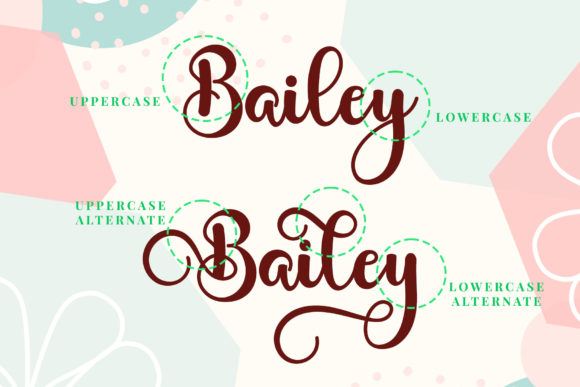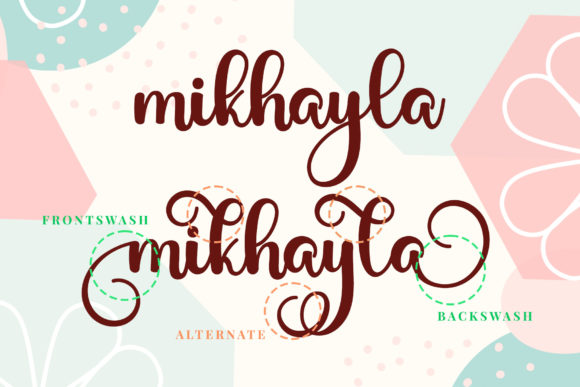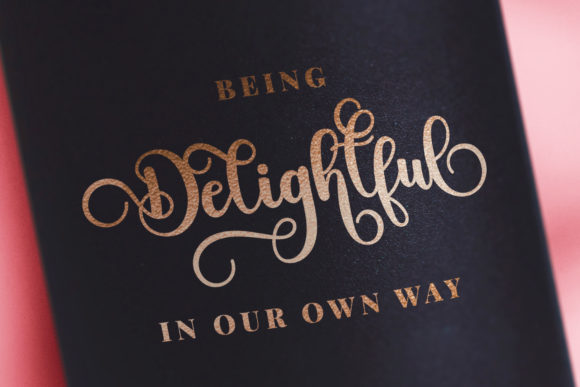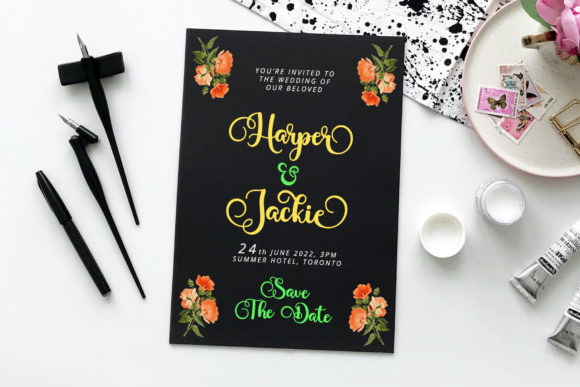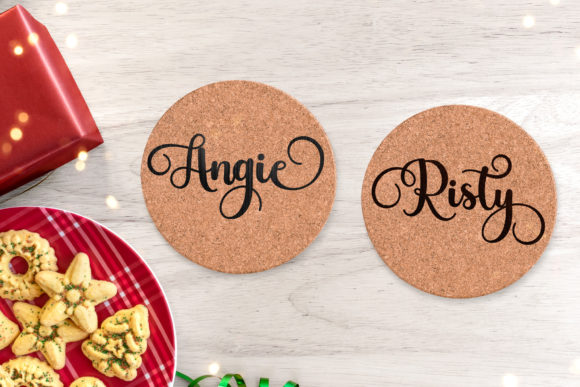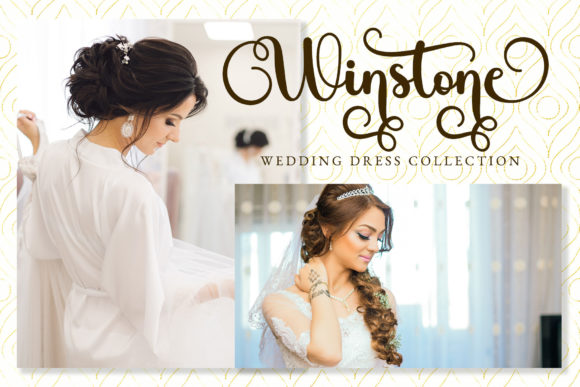
Introduction to Lastgirl Font
As a designer, have you ever found yourself pouring over a blank canvas, struggling to bring your vision to life? For many creatives, the perfect font can be the key to unlocking that elusive “wow” factor. It’s in these moments of creative frustration that we turn to trusted design resources, and it’s here that the Lastgirl Font shines.
This delicate, refined script font is more than just a pretty face – it’s a sophisticated and elegant design tool that’s perfect for any creative project. With its stylish alternates and ligatures, Lastgirl Font is the perfect match for designers looking to add a touch of high-quality class to their work.
Key Features of Lastgirl Font
- High-quality, free download font perfect for creative projects, including graphic design, digital art, and more.
- Unique, bold design elements, making it an ideal choice for those looking to add a touch of personality to their work.
- Transparent background, allowing for seamless integration into any design or creative project.
- High-resolution font, suitable for use in both print and digital applications, including business cards, posters, and websites.
- Designed to be a versatile design resource, suitable for a wide range of creative projects, from fashion to technology.
Honest Review: Lastgirl Font
I recently had the chance to work with the Lastgirl Font in a creative project and I must say, I was pleasantly surprised by its quality and versatility. ✨ The font is perfect for those who need a modern, elegant script for their design projects. The transparent background makes it easy to layer over images or other design elements.
Here are some of the things that I love about the Lastgirl Font:
- High-quality design: The font is well-crafted and looks great in both digital and print formats.
- ⚠️ Limited character set: The font only includes a limited set of characters, which may not be suitable for projects that require a wide range of characters.
- ⚠️ Not suitable for small text: The font is best used for larger text sizes, as it can become difficult to read at smaller sizes.
Overall, I’m impressed with the Lastgirl Font and would definitely recommend it as a design resource for those who need a high-quality, modern script font. Its transparent background and free download make it a great choice for creative projects of all kinds.
Lastgirl Font
The Lastgirl Font is a versatile design resource ideal for creative projects requiring a unique and high-quality typography. This font features a transparent background, making it perfect for overlaying text on images or backgrounds.
Tips for Getting the Most Out of Lastgirl Font
To get the most out of the Lastgirl Font, experiment with different font sizes and styles to achieve the desired look. Use the font’s transparent background to create unique and eye-catching designs. You can also combine the font with other design elements, such as images and shapes, to create a visually appealing design.
The Lastgirl Font is ideal for creative projects, including graphic design, digital art, and web design. It’s also perfect for use in social media graphics, blog posts, and other online content. With its high-quality design and transparent background, the Lastgirl Font is a valuable design resource for any creative project.